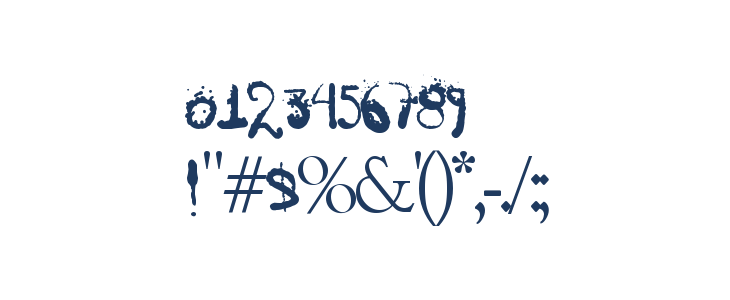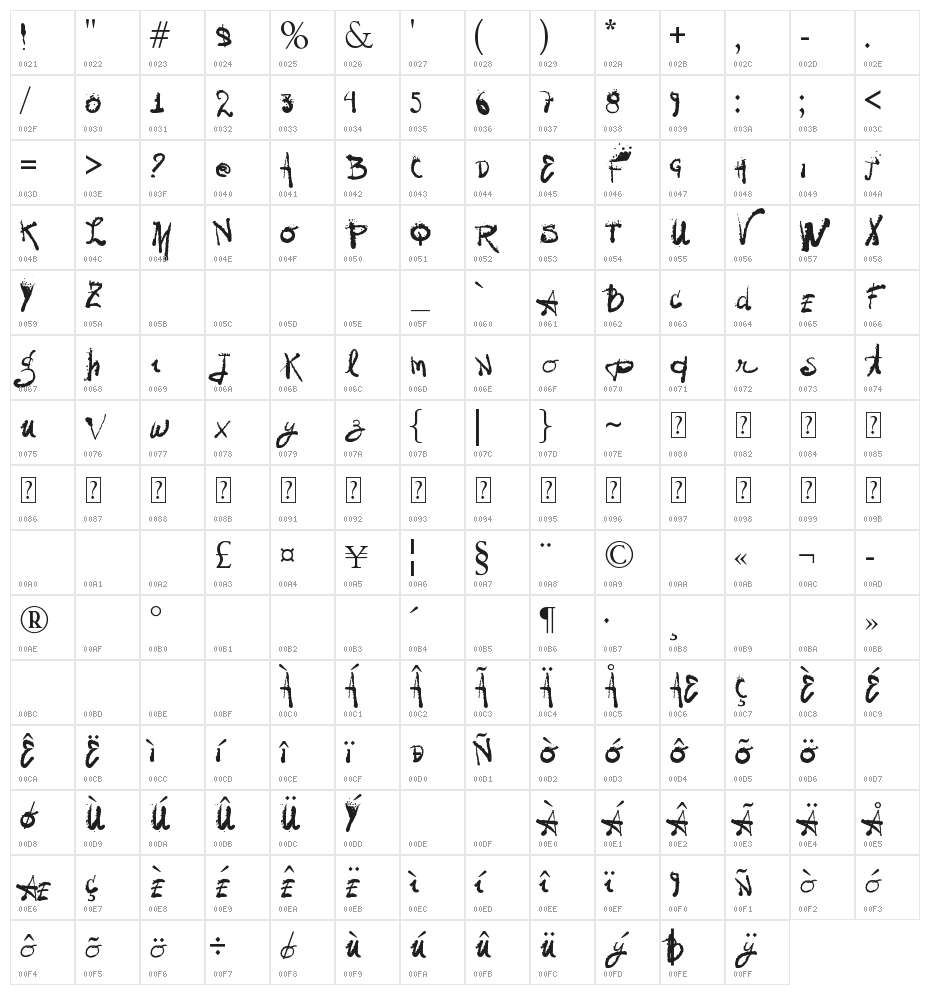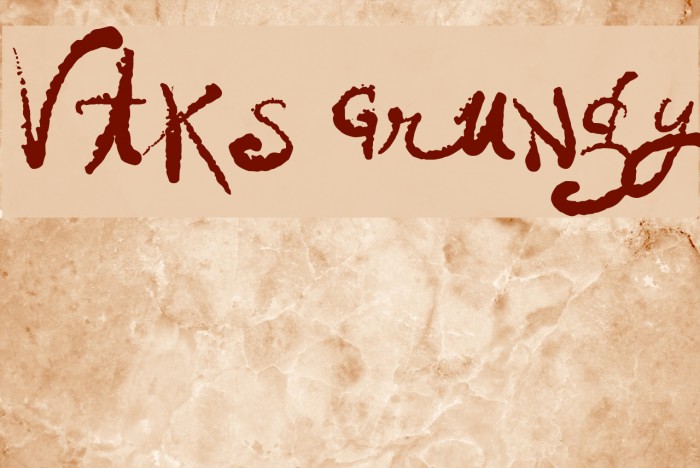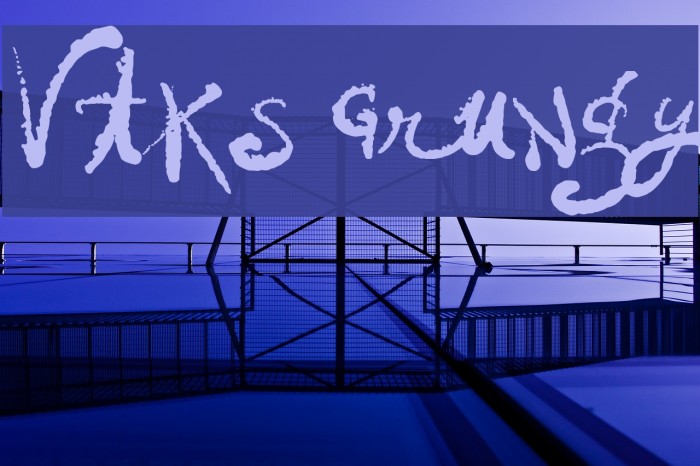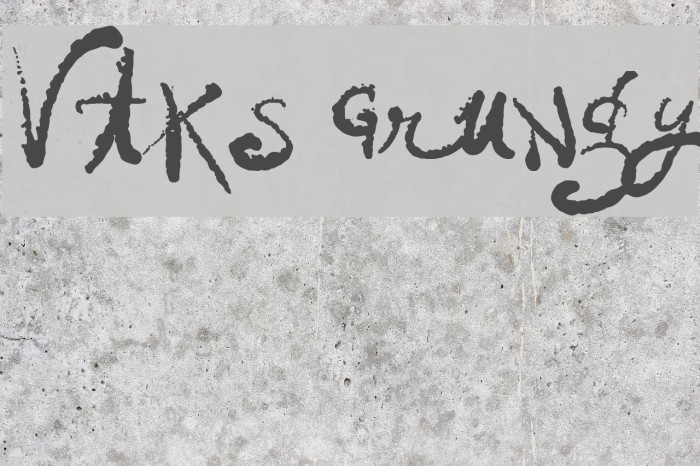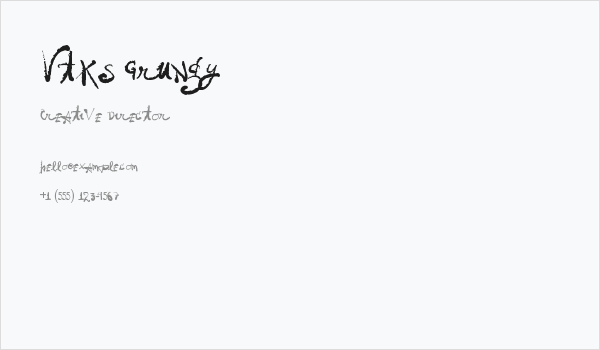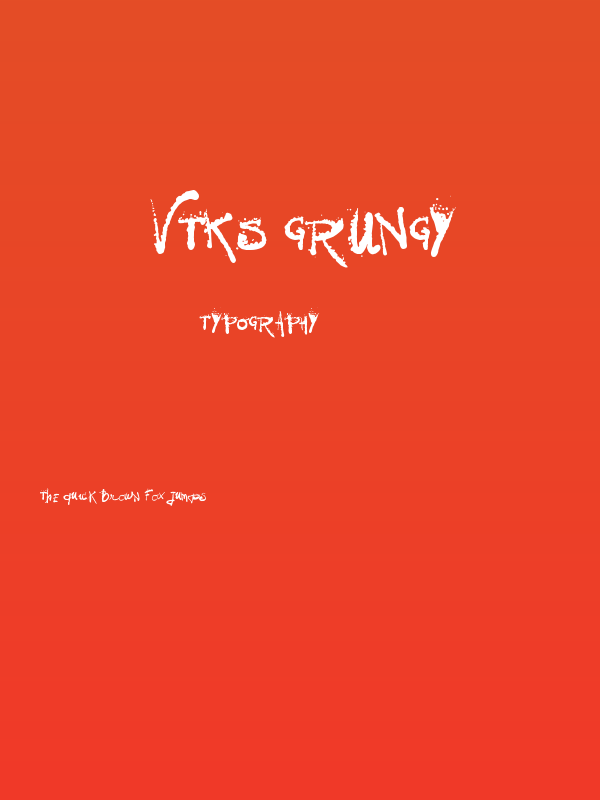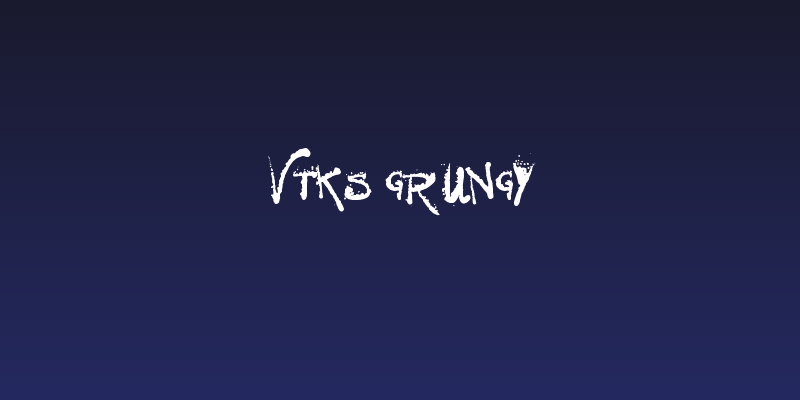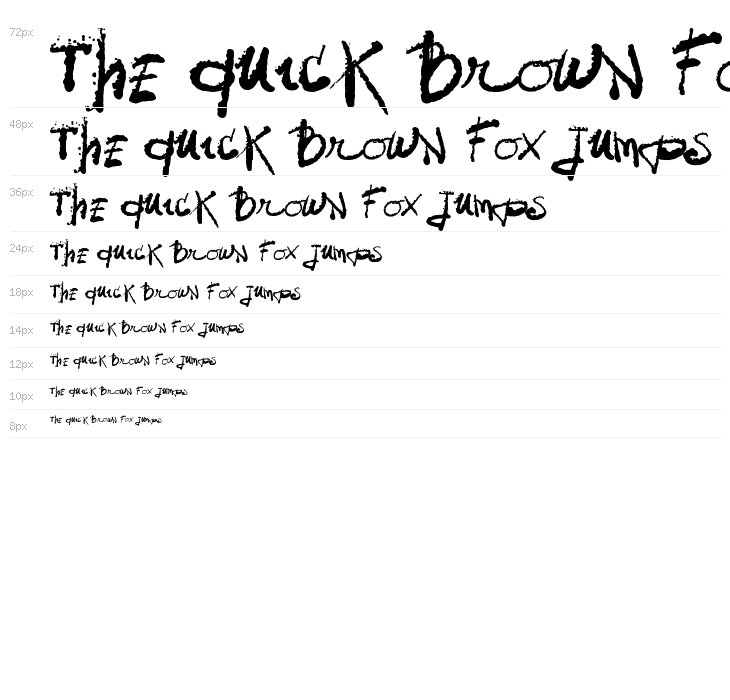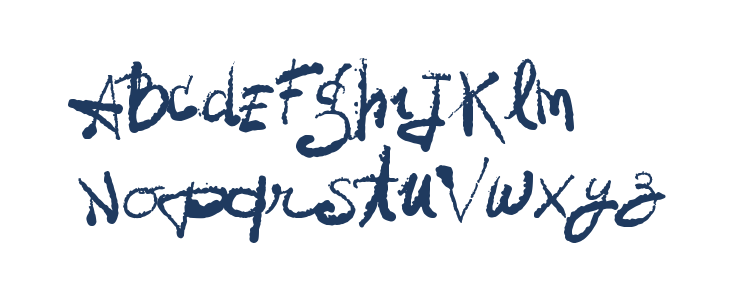
Vtks Grungy Font
Vtks Grungy Description
This font features a grungy, distressed style with a splattered ink effect, giving it a raw and edgy appearance. The characters are irregular and uneven, with varying stroke thickness that adds to its chaotic and artistic vibe. The uppercase and lowercase letters maintain a consistent theme of ruggedness, while the numbers and special characters complement the overall aesthetic. This font is perfect for projects that require a bold, unconventional look, such as album covers, posters, or any design that aims to stand out with a rebellious flair.
| Overall Style | Grunge, Artistic, Edgy |
| Proposed Projects | Ideal for album covers, edgy posters, street art designs, and rebellious-themed branding. |